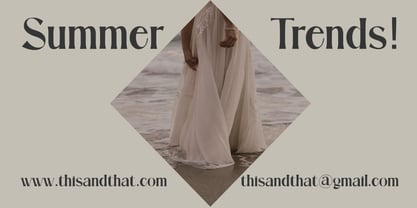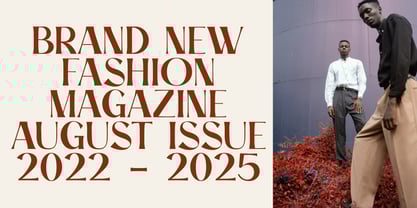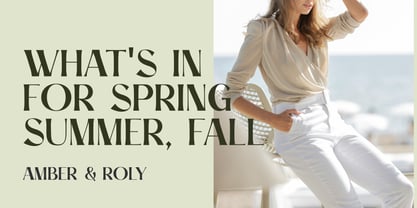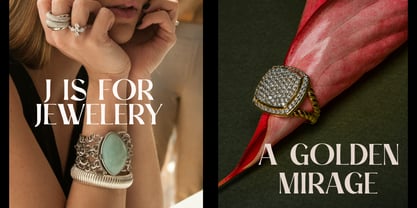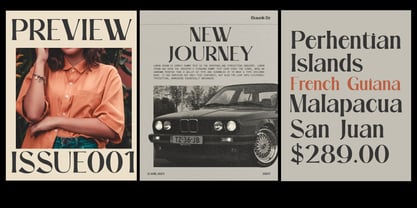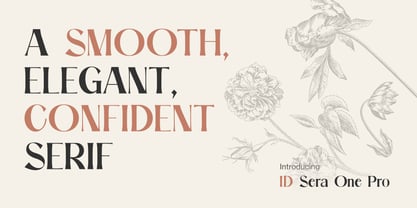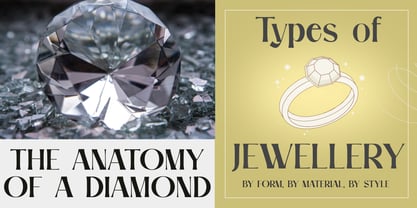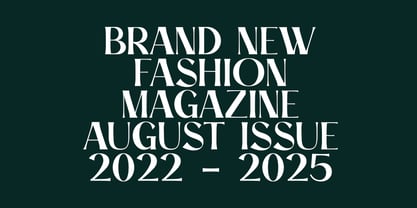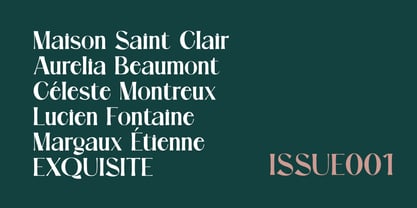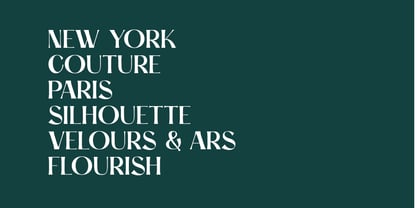
ID Sera One Pro
by Ekaunik Dz
The ID Sera One Pro Font Family was designed by Swati Bhatnagar and published by Ekaunik Dz. ID Sera One Pro contains 1 styles. More about this family
ID Sera One Pro is a smooth, confident, elegant serif featuring high contrast with vintage elegance. Sera One Pro is expressive with a touch of playfulness — but above all, it is sophisticated. It stands out with its unique style and functional features, making it a valuable addition to any designer's toolkit. Sera One Pro oozes a luxurious and eye-catching style.
Designers: Swati Bhatnagar
Foundry: Ekaunik Dz